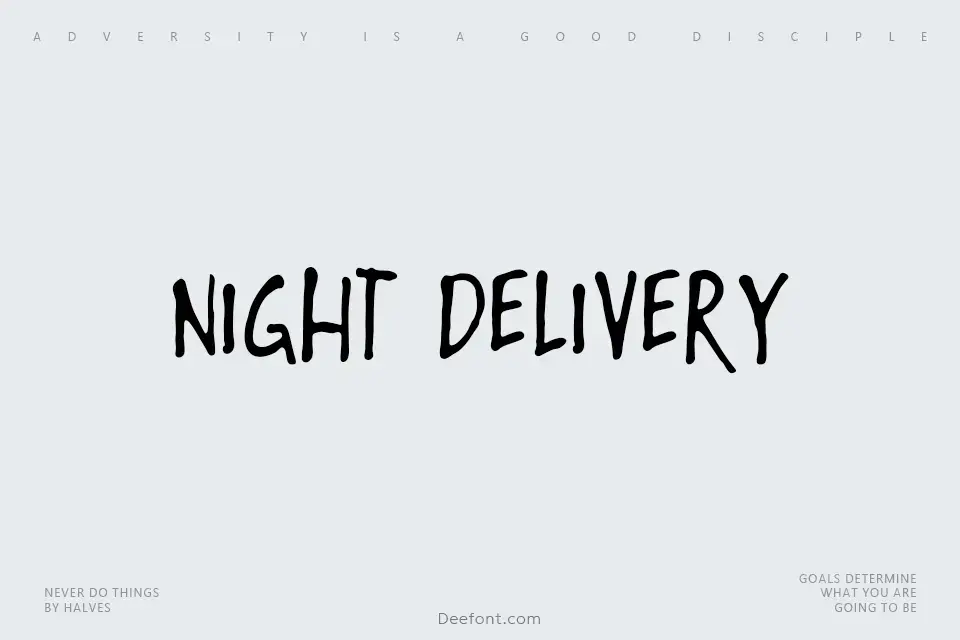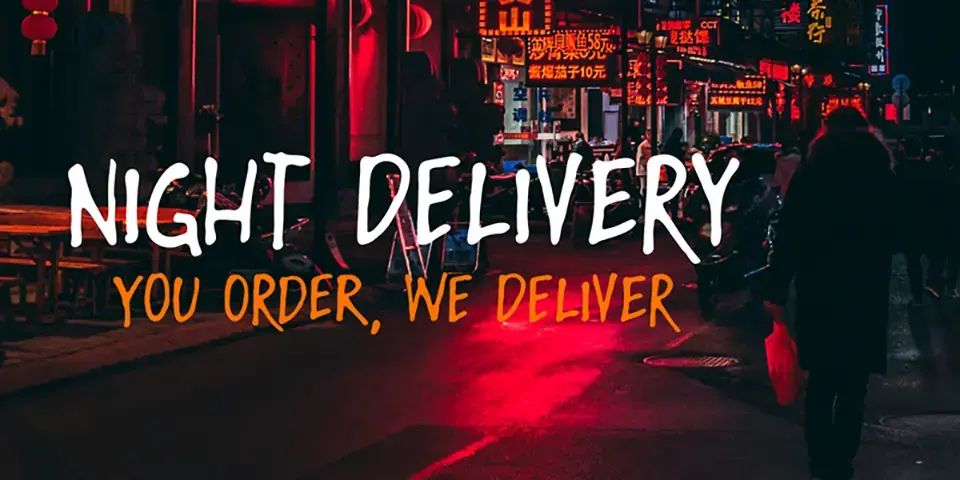
Night Delivery Font
Night Delivery is a charming handwritten script font with semi-condensed proportions and semi-light weight, characterized by bold, energetic brush-formed strokes. This font combines playful spontaneity with refined elegance, making it ideal for delivery service branding, packaging design, event invitations, and social media graphics. Its unique character set delivers personal touch while maintaining excellent readability across various applications including posters, logos, and creative titling projects.